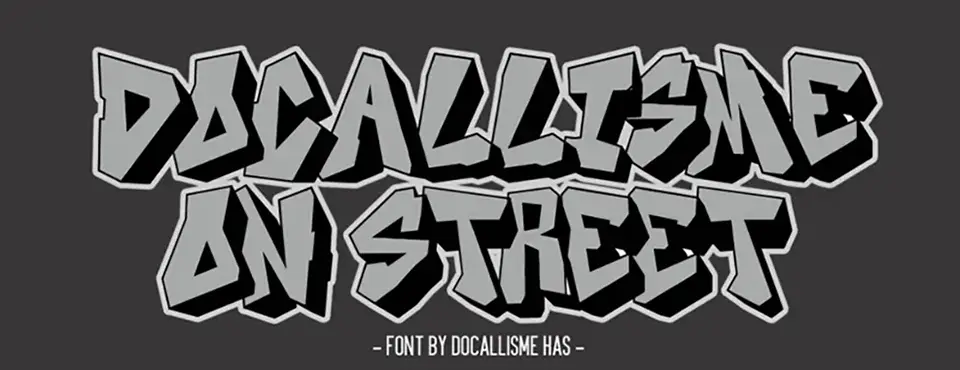
Docallisme On Street Font
Docallisme On Street is a striking graffiti font inspired by street art and urban culture, featuring bold angular lines and a gritty, eye-catching aesthetic. Created with a raw, unpolished style perfect for high-impact designs, this versatile typeface excels in posters, flyers, logos, and signage. Its authentic DIY feel makes it ideal for projects requiring a rebellious or edgy visual statement, delivering dynamic typography that demands attention.